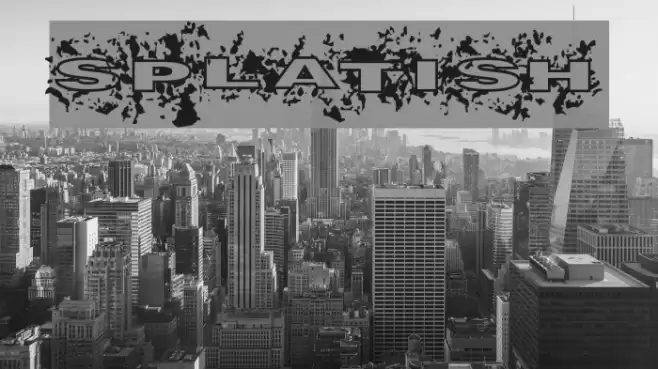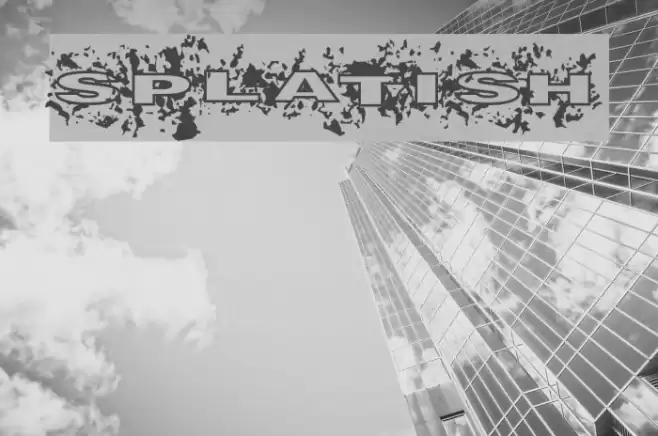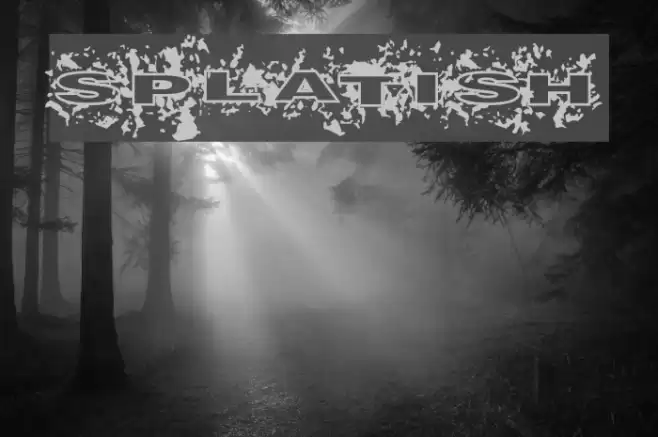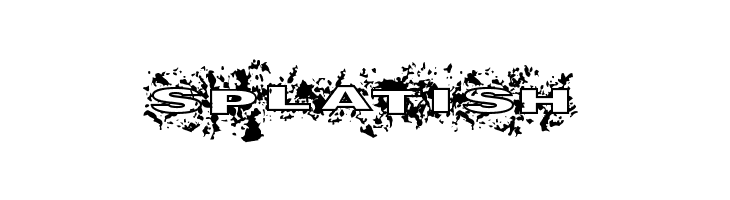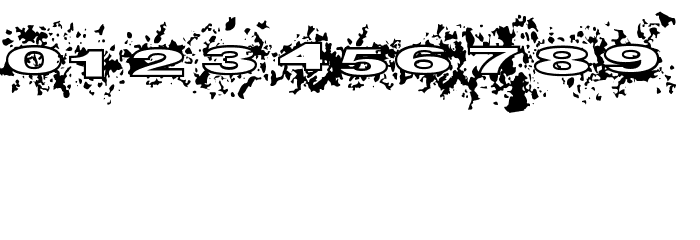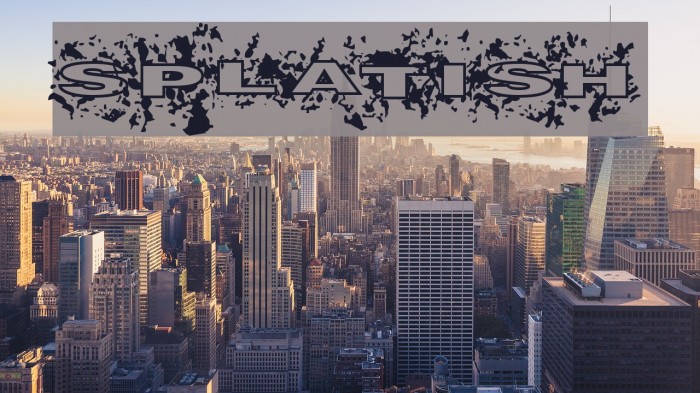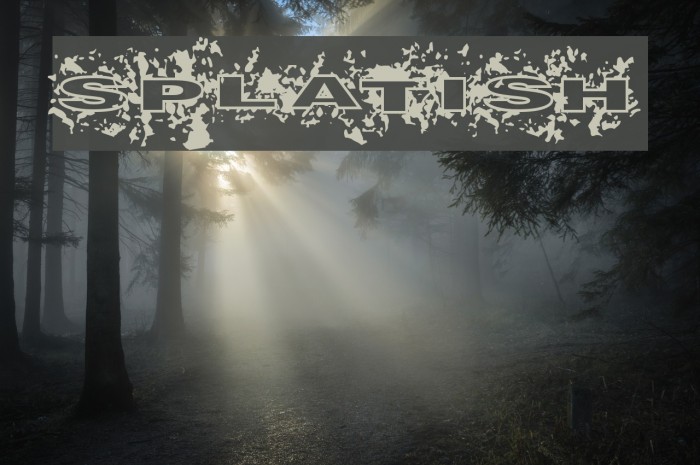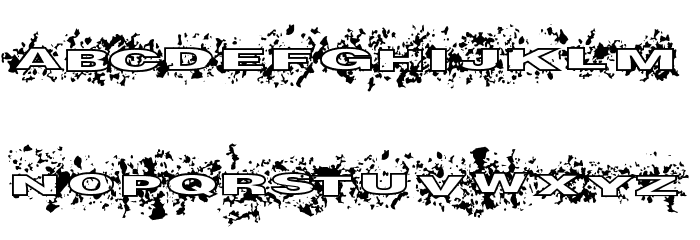
Splatish Font
This font features a bold, decorative style with a splattered paint effect surrounding each character. The uppercase and lowercase letters, as well as numbers, are designed with a strong, impactful presence, making them ideal for eye-catching designs. The splatter effect adds a dynamic and edgy feel, perfect for projects that require a grunge or urban aesthetic. The characters are well-defined, ensuring readability despite the decorative elements. This font is suitable for creative projects that aim to stand out and make a bold statement.
A bold, decorative font with a splattered paint effect for an edgy, urban look from Fancy fonts.
- Proposed Projects: Ideal for posters, album covers, streetwear branding, and any project needing a grunge or urban vibe.